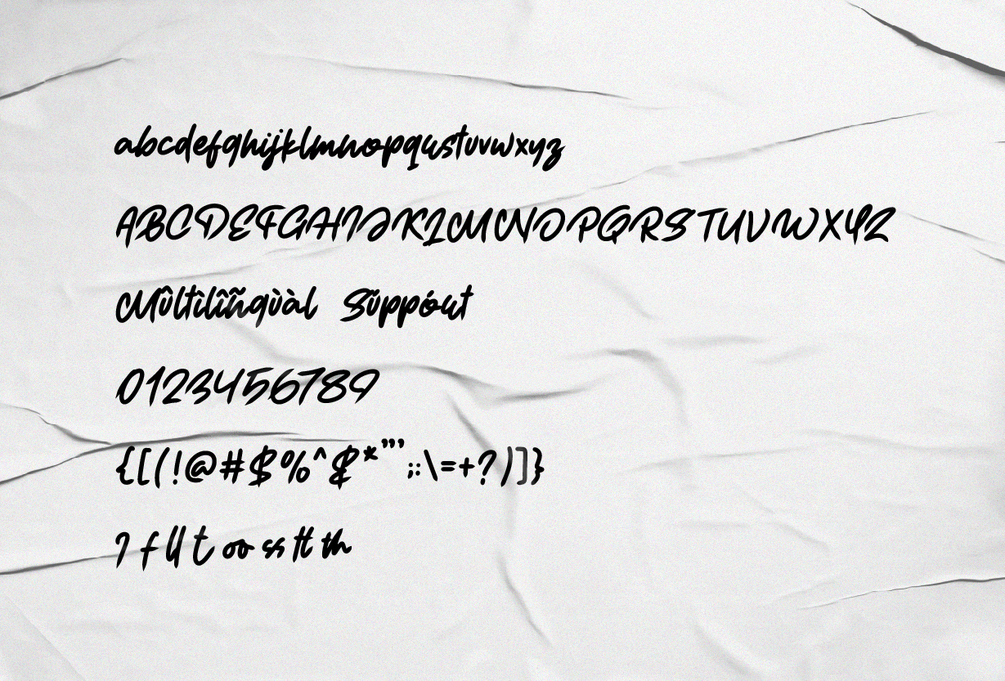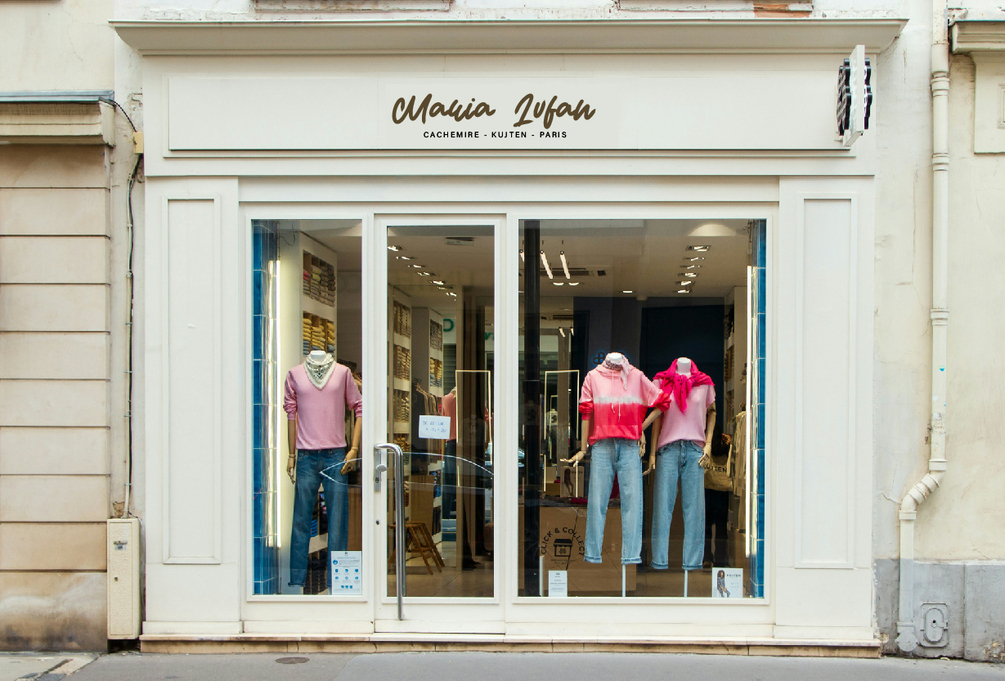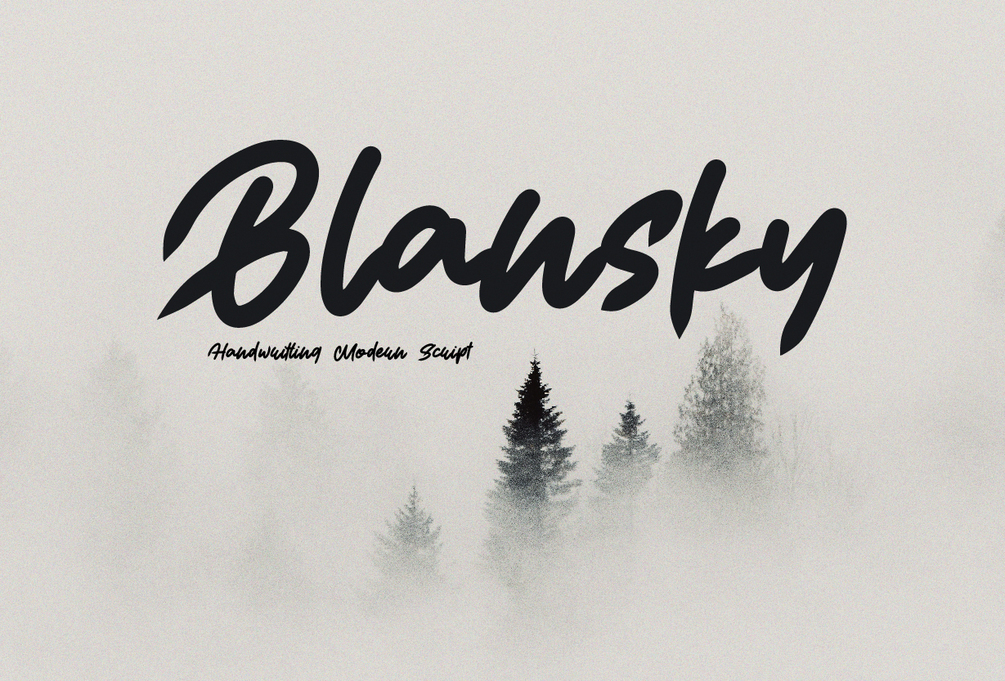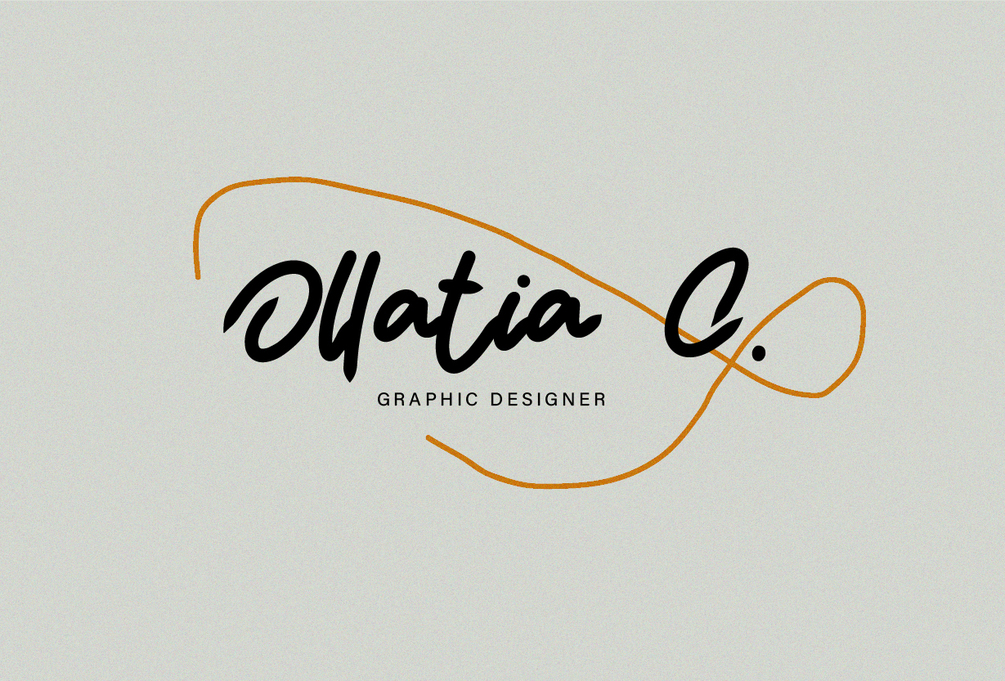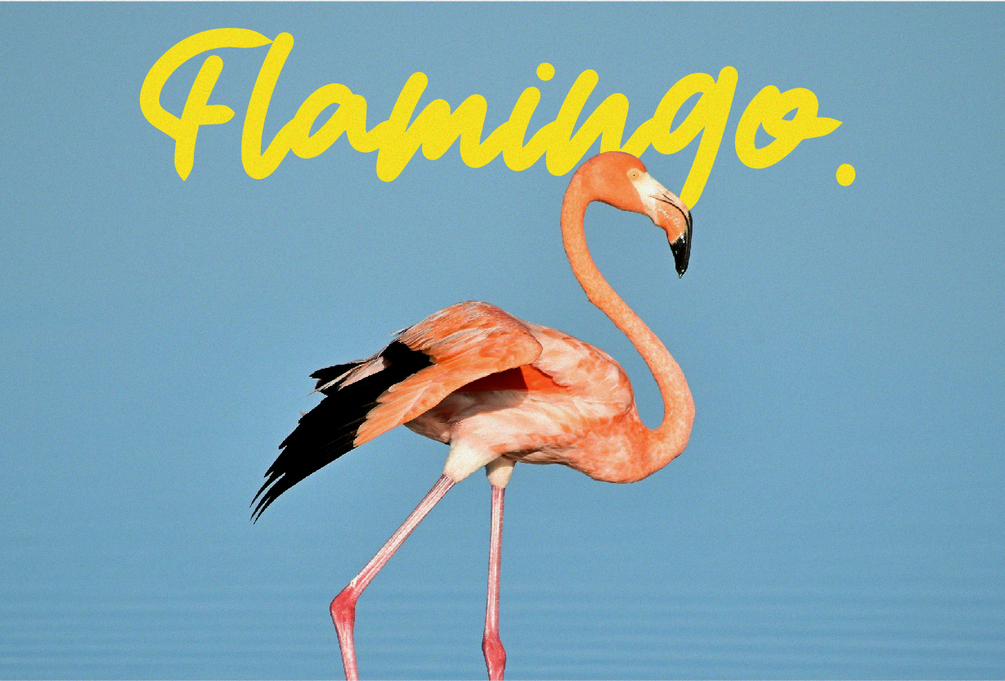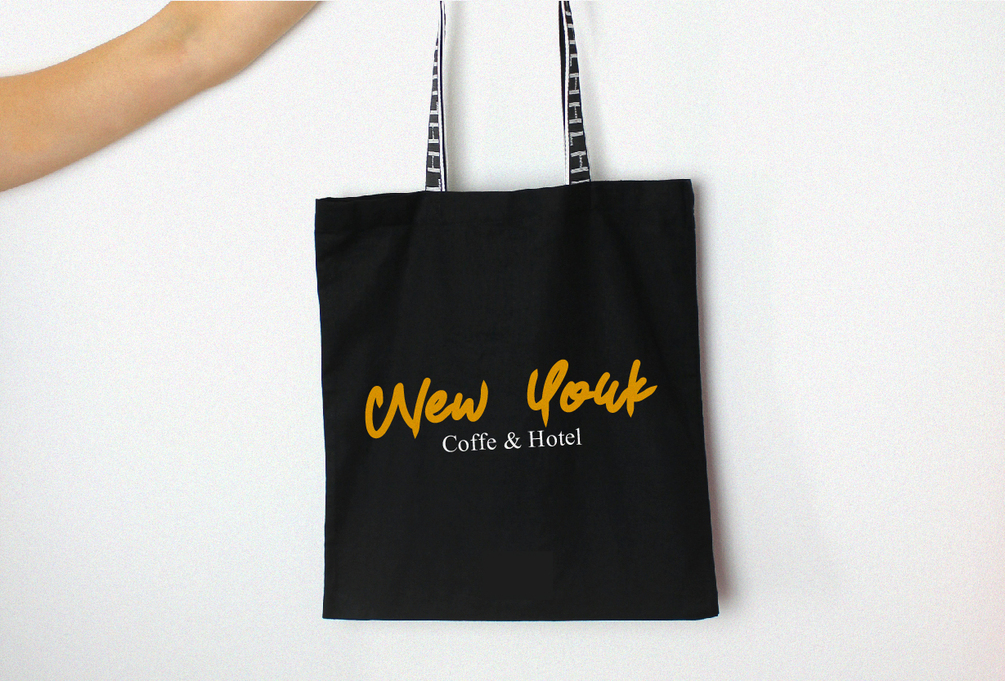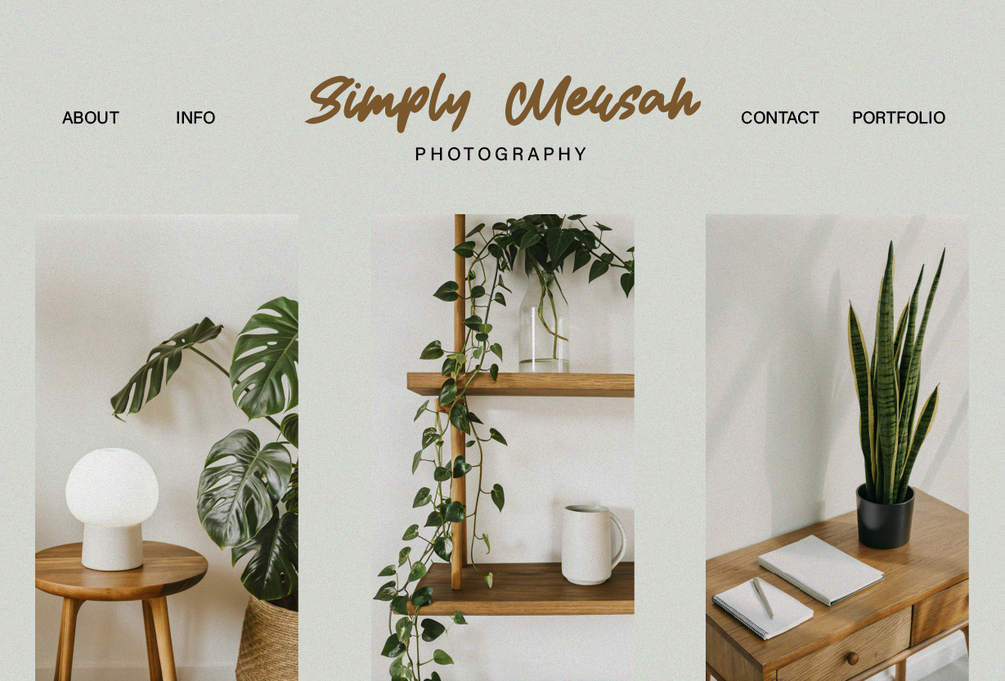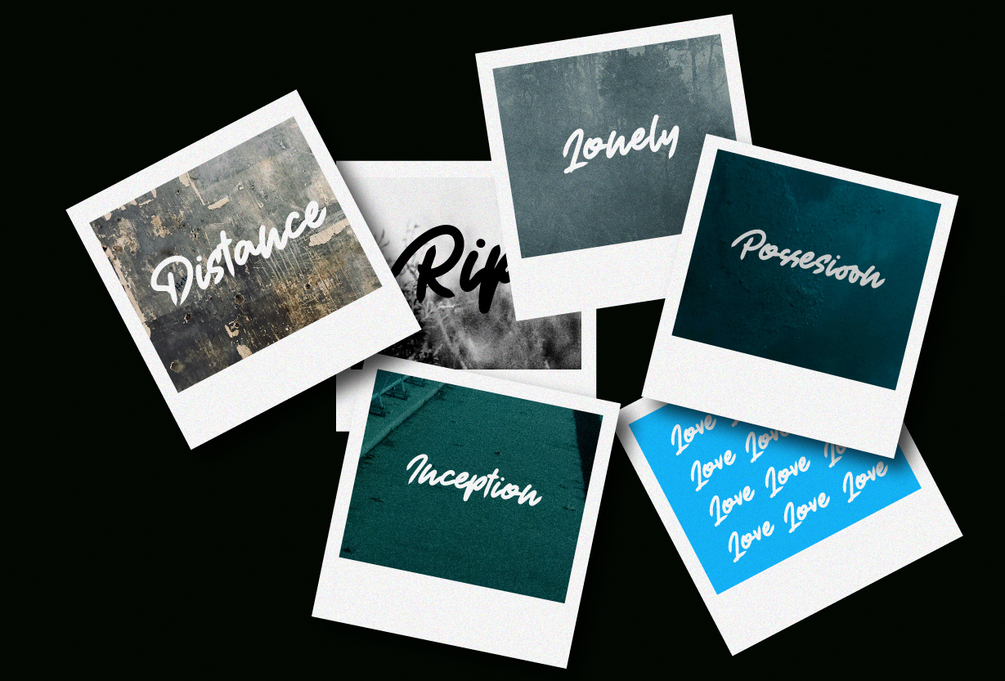
Blansky - Handwritting Font
Blansky has a sharp, elegant stroke, with typography that looks like handwriting. The bold strokes appear to be produced by fluid and skillful hand movements, giving the font an artistic, handmade feel. Medium to large typography sizes will display stroke details clearly. This letter font is perfect for designs that require a personal and organic touch.
Blansky is supported with additional characters that have alternative shapes and strokes that will help you achieve beautiful styles with your own creations.
- Uppercase, Lowercase, Foreign Support, Numbers and Punctuation
- Alternative, Ligature